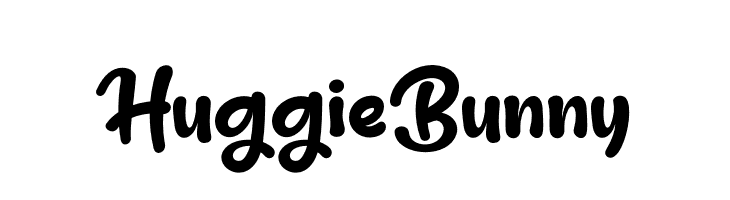
• Angie Atore Regular
( Matt Bruinooge )
A pixelated, retro-style font with a digital, blocky design.
• OgieCappoCampotype
( campotype - andi aw. masry - www.campotype.com )
A bold, geometric font with thick strokes and sharp angles.
• Et BoogieBlocks Round
( Electropithecus )
A bold, playful font with rounded edges and a blocky structure.
• MAGGIE MAE Regular
( GroovyJournal - www.groovyjournal.com )
A playful, bold handwritten font with a casual and friendly style.
• Georgies_Typewriter
( Illustrator Georgie Retzer - www.facebook.com/illustratorg )
A bold, playful font with outlined, rounded characters and medium contrast.
• KG_PIGGIES
( Katz Fontz - katzfonts.50megs.com/kg.html )
A playful font with letters inside cartoon pig characters, offering a whimsical and fun style.
• Full-TiltBoogieNF
A bold, geometric font with intricate line patterns and sharp edges.
• BoogieNightsNFShadow
A bold, geometric font with a three-dimensional shadow effect.
• Shagie Hodie
( Fonts by Inopatype )
A bold, playful handwritten font with rounded, smooth letterforms.
• Veggie Regular
A playful set of cartoonish characters with expressive faces.
• Bagie Bold
( Fonts by Kong Font )
A bold, playful font with thick strokes and rounded edges.
• Buggiel Regular
( Fonts by Weape Design )
A playful, bold font with rounded edges and a slightly condensed form.
• Boogie Woogie Book Regular
A bold, high-contrast font with a modern, geometric style.
• Boogie Woogie Regular
A bold, geometric font with vertical line patterns for a dynamic look.
• Nugie Romantic